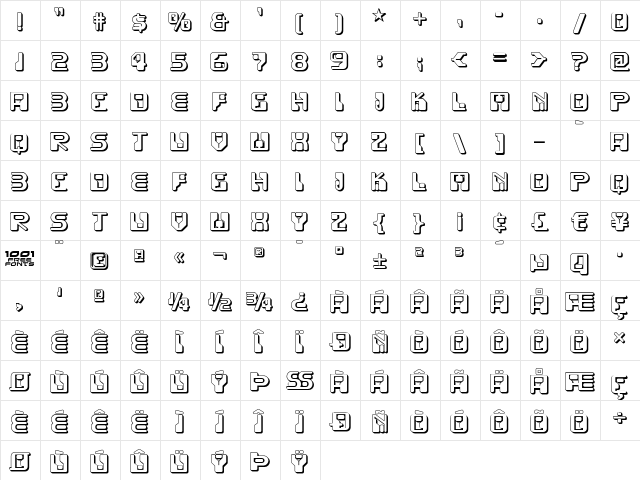
Funky Rundkopf Two NF Regular
Design Context for Funky Rundkopf Two NF Typeface
Funky Rundkopf Two NF trades formality for fun, with bouncy, characterful letterforms that bring warmth and energy to any project.
Font Pairing: Pairs well with a rounded or humanist sans for body copy, maintaining the friendly tone without relying on Funky Rundkopf Two NF to carry extended reading.
Pro Tip: Avoid using Funky Rundkopf Two NF for long passages of text — it works best for headlines, labels, and short calls to action.